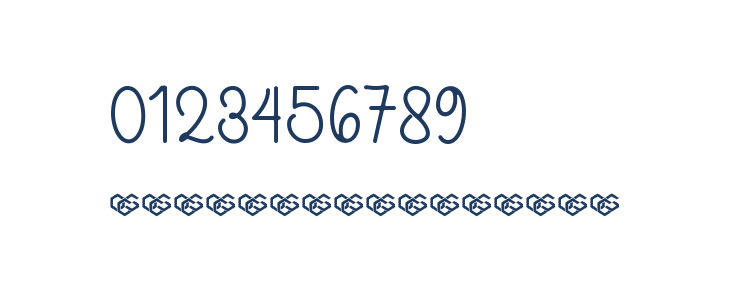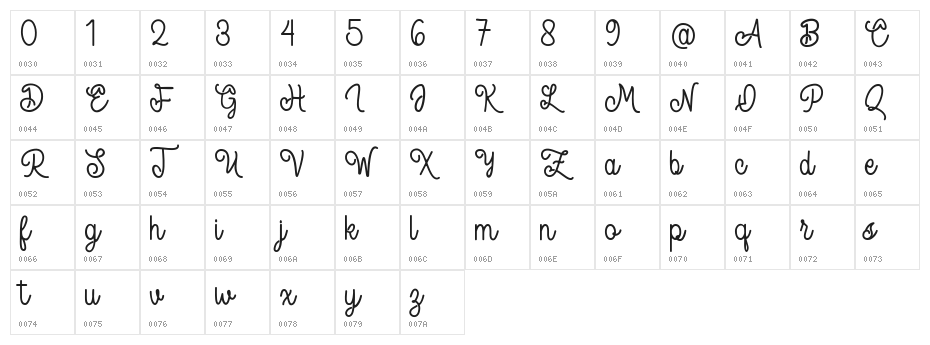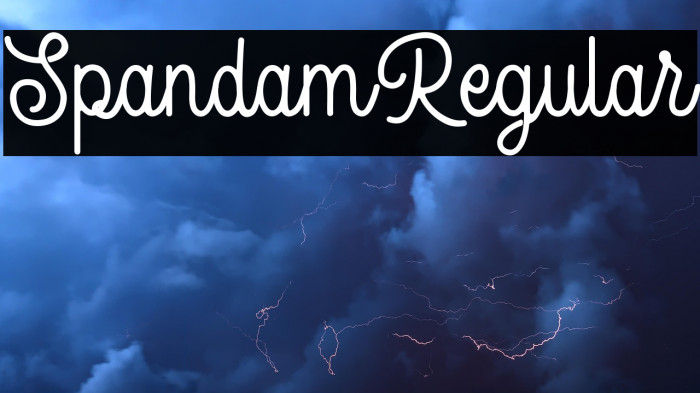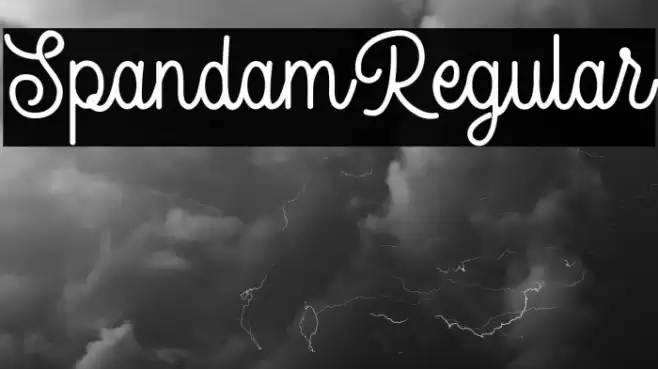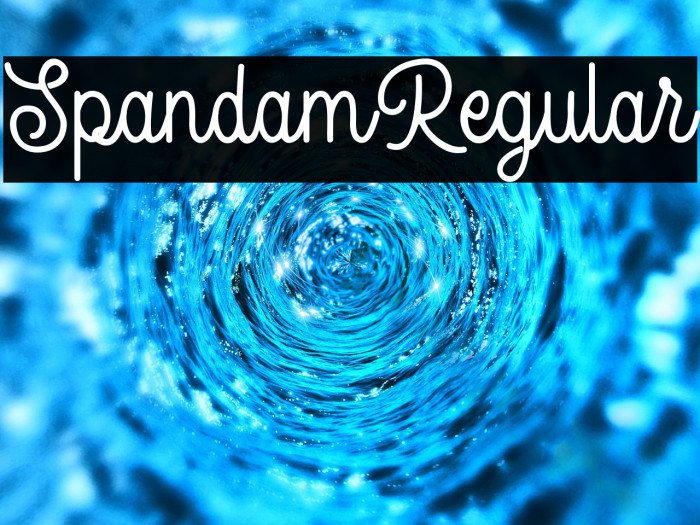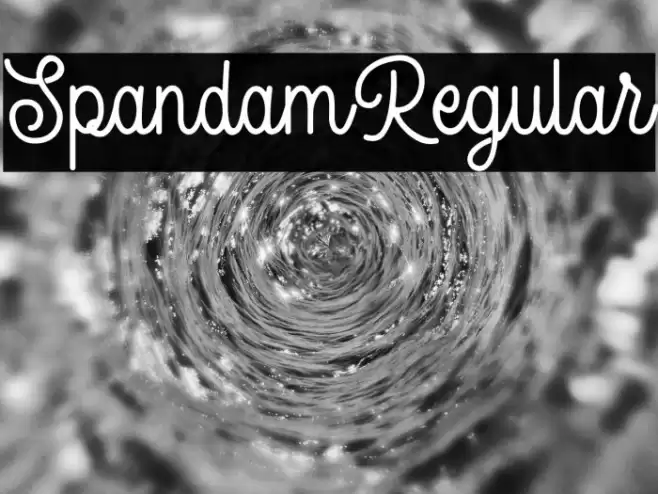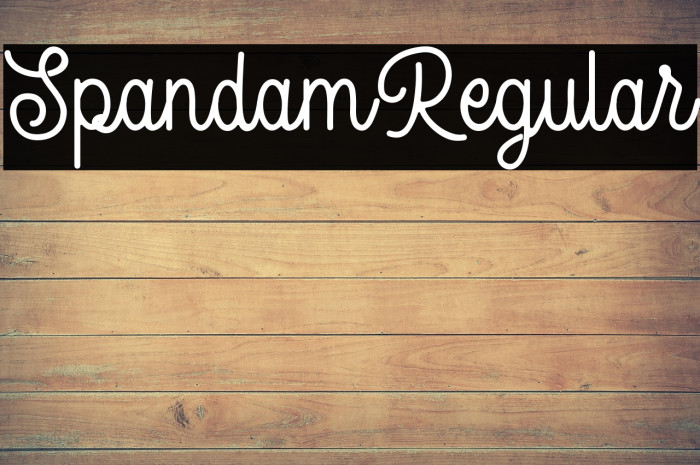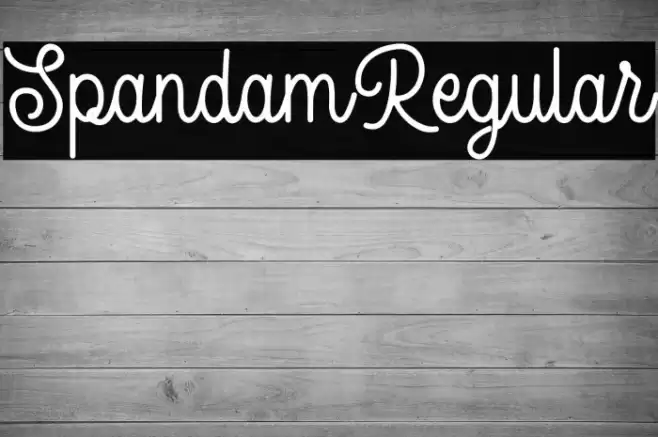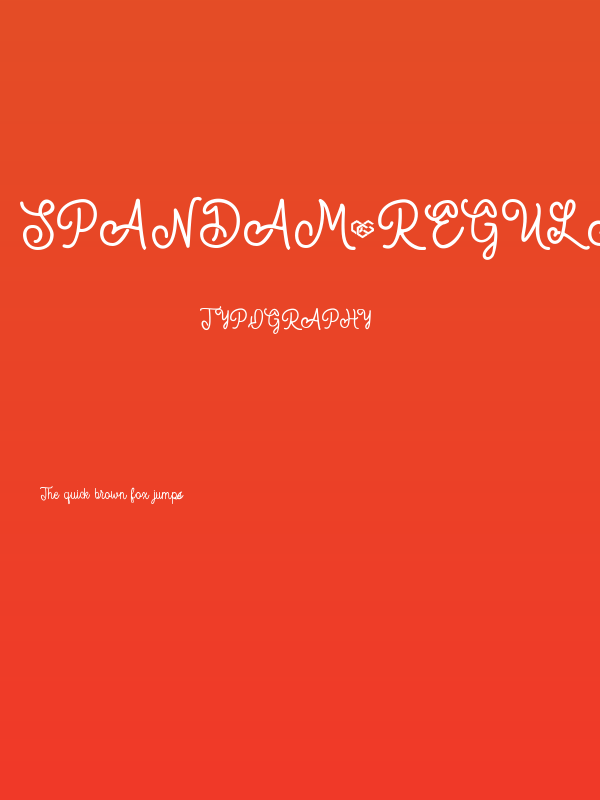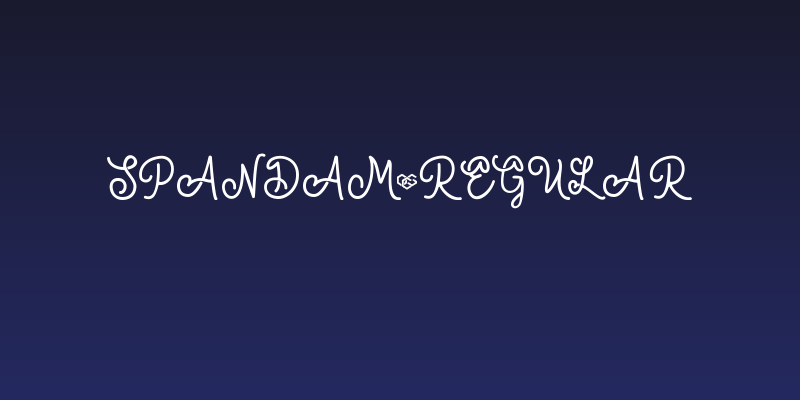
Spandam-Regular Font
Spandam-Regular Description
This font features a playful and whimsical script style with a hand-drawn appearance. The letters are interconnected with smooth, flowing curves, giving it a lively and dynamic feel. The uppercase letters have a unique, decorative flair, while the lowercase letters maintain a consistent, rounded form. The numerals are bold and clear, matching the overall style of the alphabet. Special characters are creatively integrated, maintaining the font's cohesive look. This font is ideal for projects that require a personal touch or a creative, informal vibe.
| Proposed Projects | Greeting cards, invitations, logo design, and creative branding projects. |